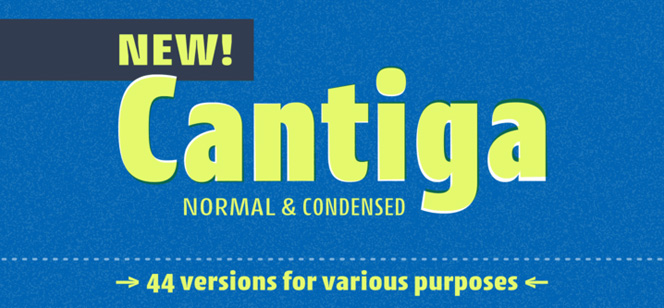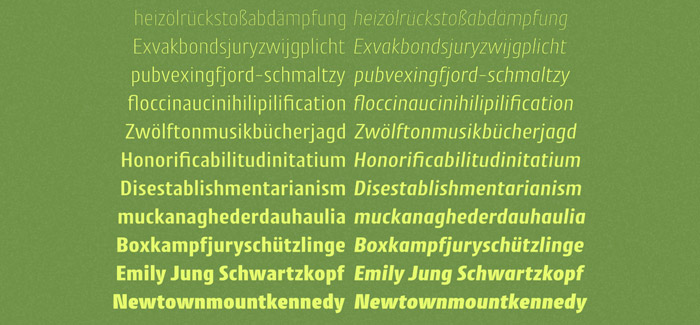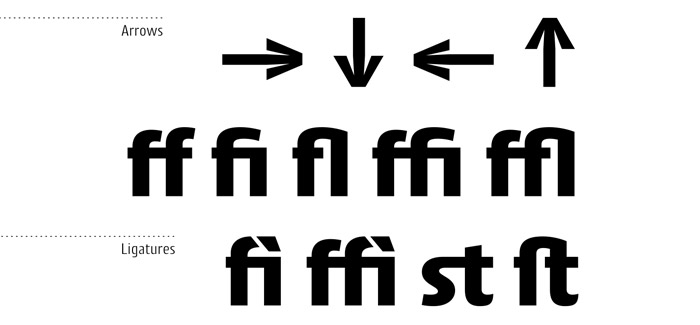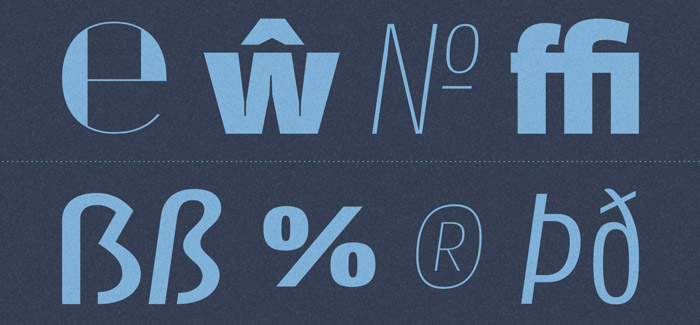
Cantiga font
Cantiga font by Isac Rodrigues (Isaco type foundry) is a populous font family turning 44 different variations in two basic widths – Normal and Condensed, with 11 weights each, plus their respective italic versions. The font name comes from the word “cantiga” – a monophonic song or melody, sometimes repetitive, often with unpretentious themes. In the same way, Cantiga font family combines robustness with some very fine details.
You can choose thinner (or thicker) versions for titles, and intermediate versions (normal, medium, etc.) to small sizes. The Cantiga font family condensed versions are intended for space saving purposes. Use the light versions for special cases in huge sizes. Cantiga is designed to be your new “Swiss army knife” Sans typeface. All of the fonts are available in OpenType PS format and have extended character set to support CE, Baltic, Turkish as well as Western European languages.